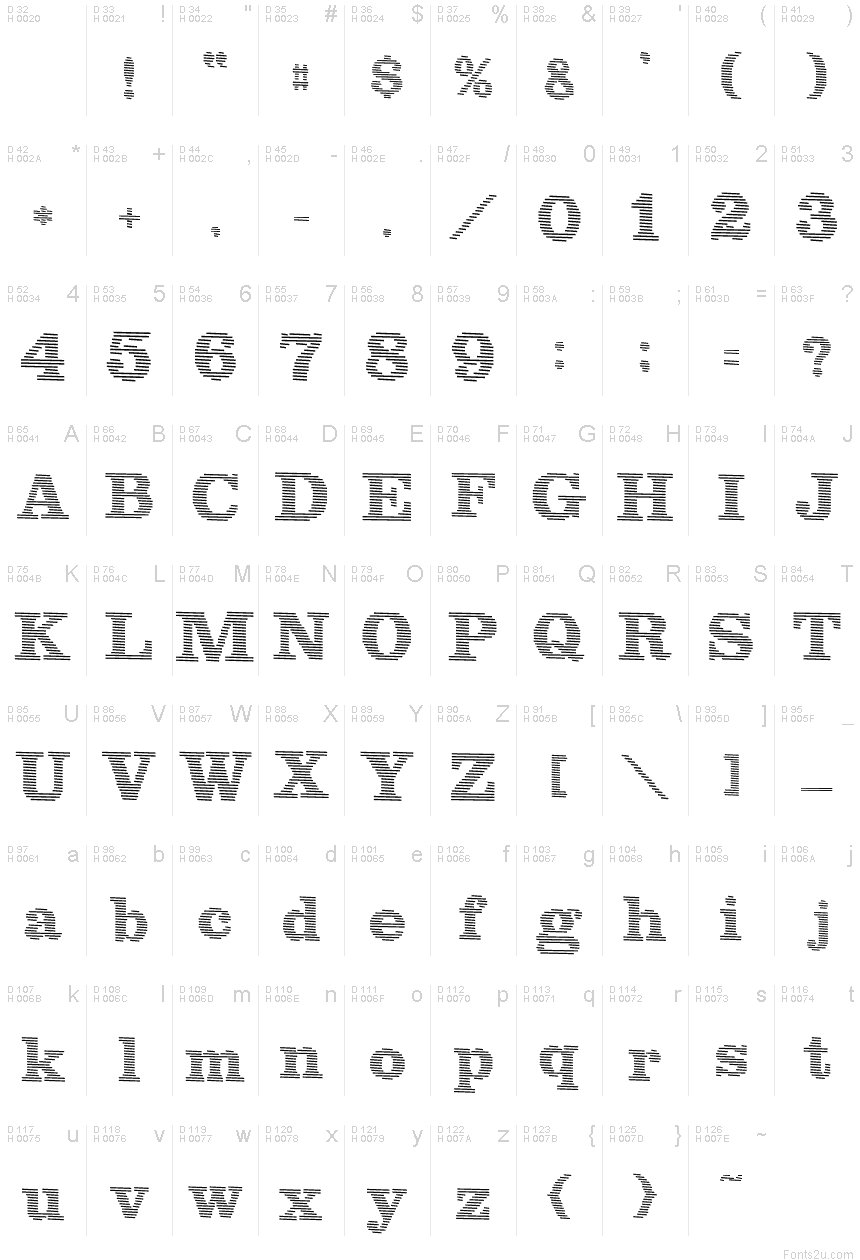
Blue lines
Blue Lines font by Jakob Fischer of PizzaDudes is a free decorative display typeface that looks like it’s been sliced into neat, repeating stripes. Each letter is built from tight horizontal lines, giving your text a buzzing, almost vibrating texture that feels bold without being heavy. The spacing is compact yet readable, so you get a strong graphic pattern that still clearly says what it needs to say.
Using Blue Lines, you can inject kinetic energy into posters, club flyers, music artwork, techy branding, bold headlines, and eye-catching social media graphics. This free font really comes alive at larger sizes, where the striped texture turns words into graphic elements. Pair it with a simple geometric sans serif for body copy and you’ll have a sharp, modern contrast that keeps the focus on Blue Lines’ distinctive rhythm.